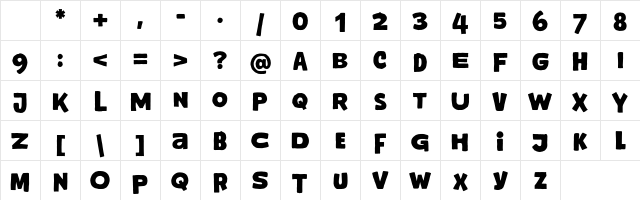
Emaro is a composed and adaptable typeface that performs quietly and consistently across a wide range of design contexts.
Pro Tip: Use Emaro in both headline and body roles to test its range before committing to a single application.